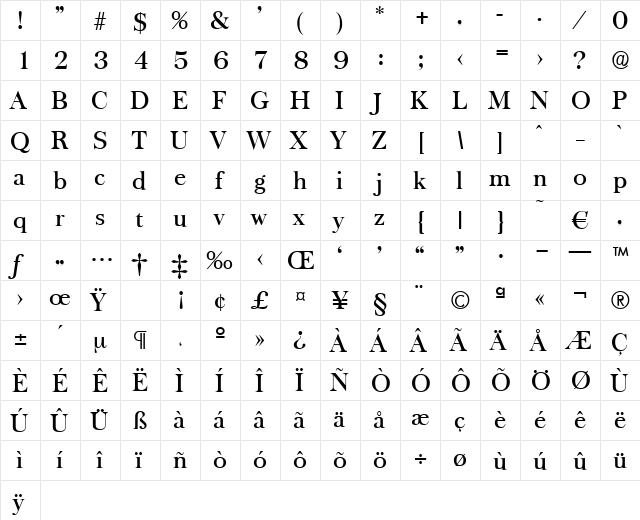
Baskerville-Medium Regular Font Preview
Baskerville-Medium Regular
Design Context for Baskerville-Medium Typeface
Baskerville-Medium takes a measured approach to typography — its balanced proportions and neutral character make it a reliable workhorse for both digital and print work.